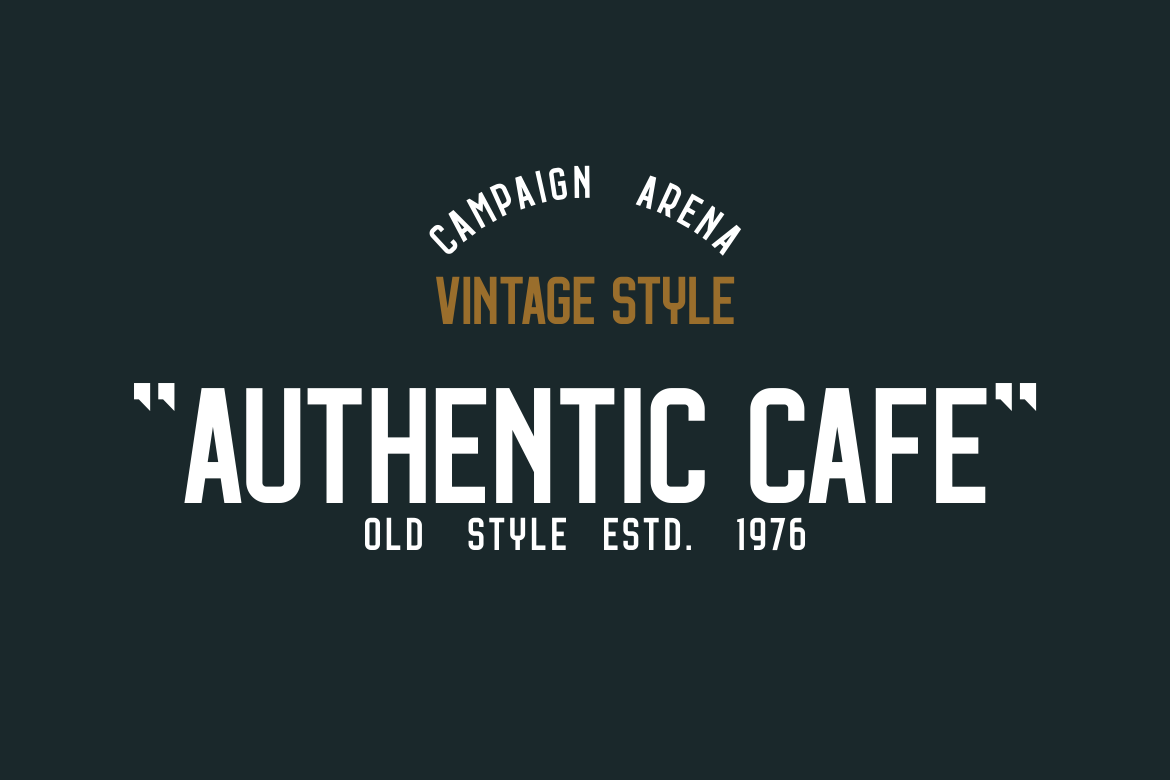
Respano Old Vintage Sport Font
Introducing Authentic Style Font: Vintage-Sport Edition. This unique font evokes a nostalgic blend of the past and energetic realms of sports with its authentically vintage character elements. Impeccably designed, the Vintage-Sport Edition of Authentic Style Font masterfully captures the timeless essence of yesteryears while injecting a dynamic vibe of athleticism, perfect for a versatile range of designs. It's not just a typeface; it's a fusion of history and vigor, thoughtfully designed for those seeking an extraordinary font experience.